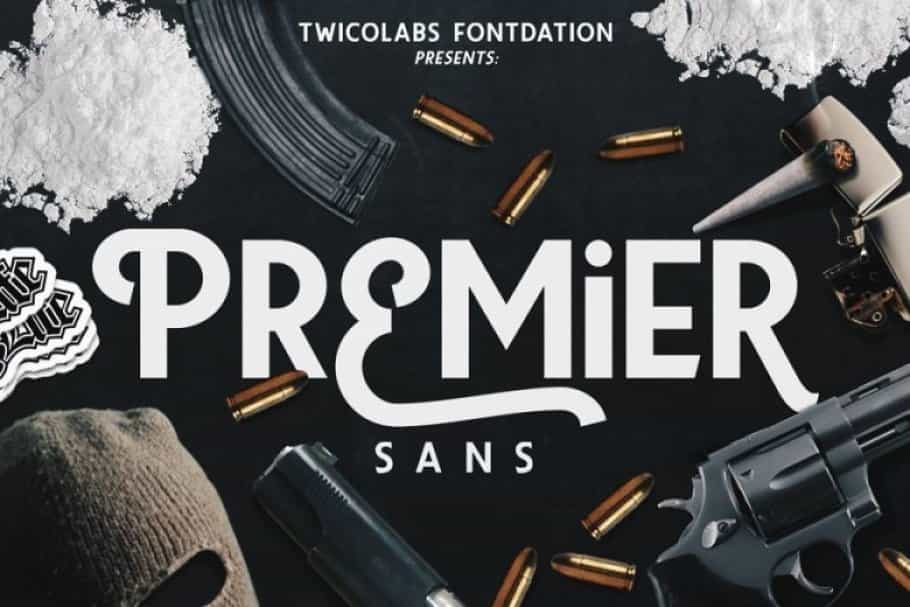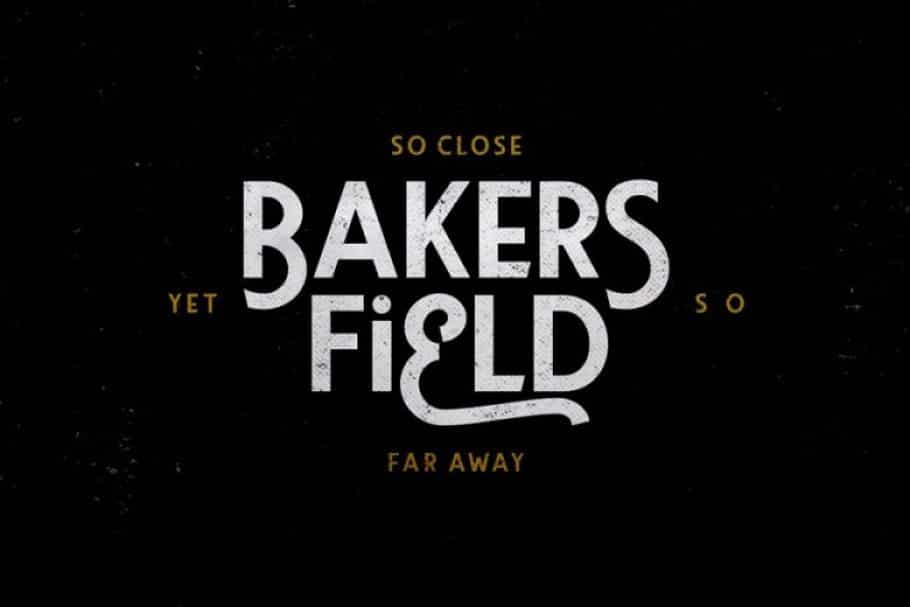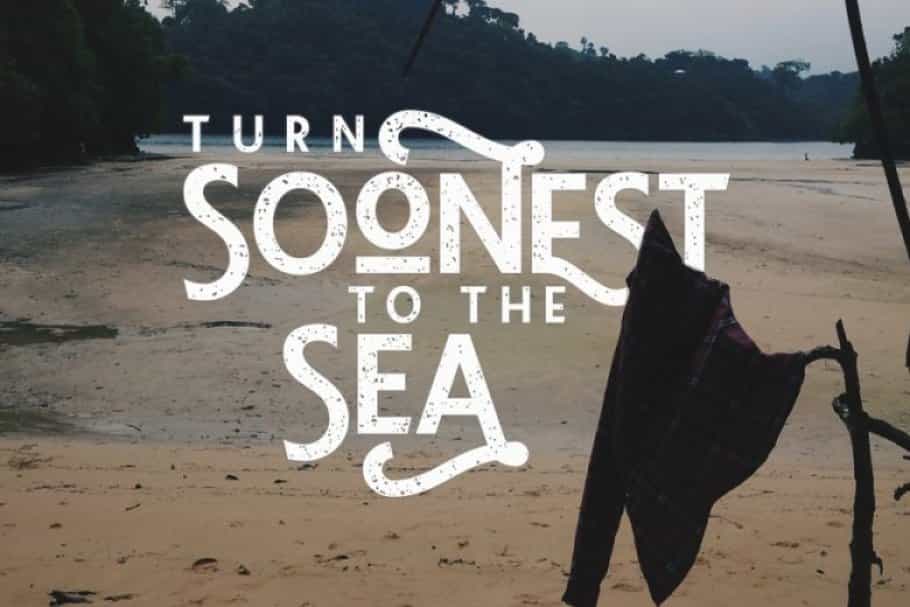
I propound to you a simplified version of the font “Premier Font“. It is created and distributed by Twicolabs Fontdation. Firstly, PremierSans is a crazy but playful sans serif typeface that was created based on the letters used in English Premier League. If you like modern but at the same time classic typeface, this one is a great addition for your collection (no pun intended).